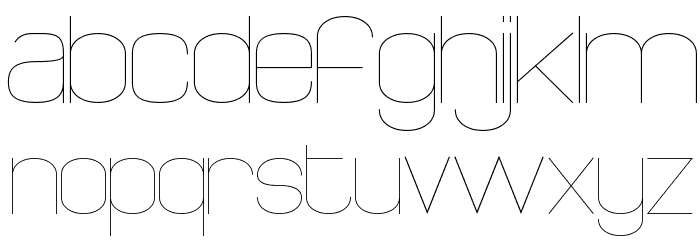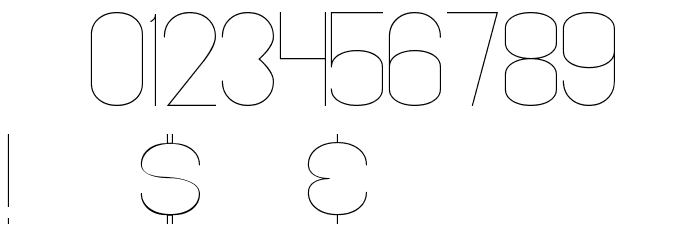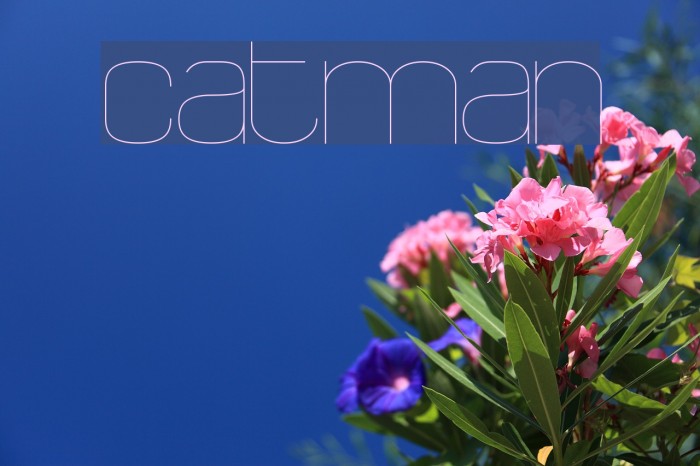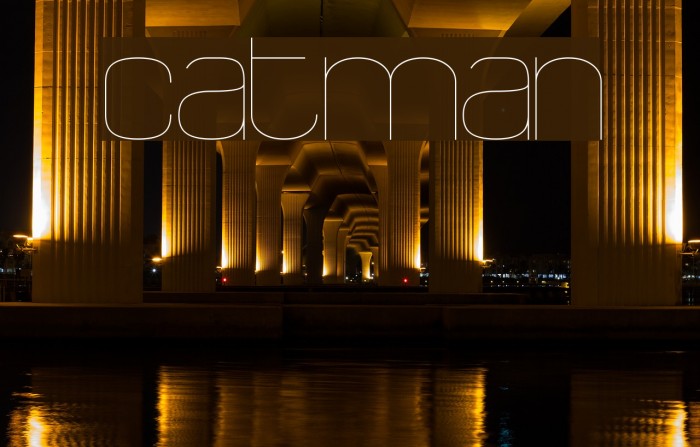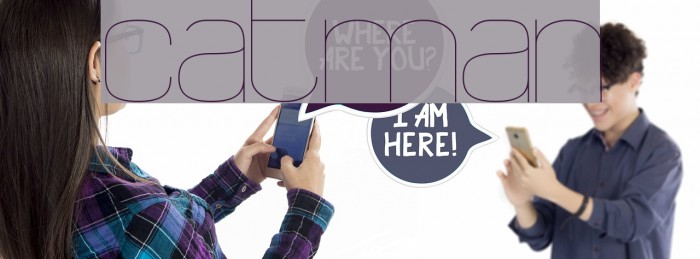
catman Font
This font features a sleek, modern design with thin, elongated letterforms that convey a sense of elegance and minimalism. The characters are constructed with clean, continuous lines, giving them a streamlined appearance. The uppercase and lowercase letters maintain a consistent height and width, contributing to a harmonious and balanced look. The numerals are designed with the same thin strokes, ensuring uniformity across all characters. Special characters like the dollar sign and exclamation mark are also crafted with the same attention to detail, maintaining the overall aesthetic. This font's simplicity and clarity make it highly versatile for various design applications.
A sleek, modern font with thin, elongated letterforms and a minimalist aesthetic.
- Proposed Projects: Ideal for modern branding, minimalist posters, sleek product packaging, and contemporary web design.